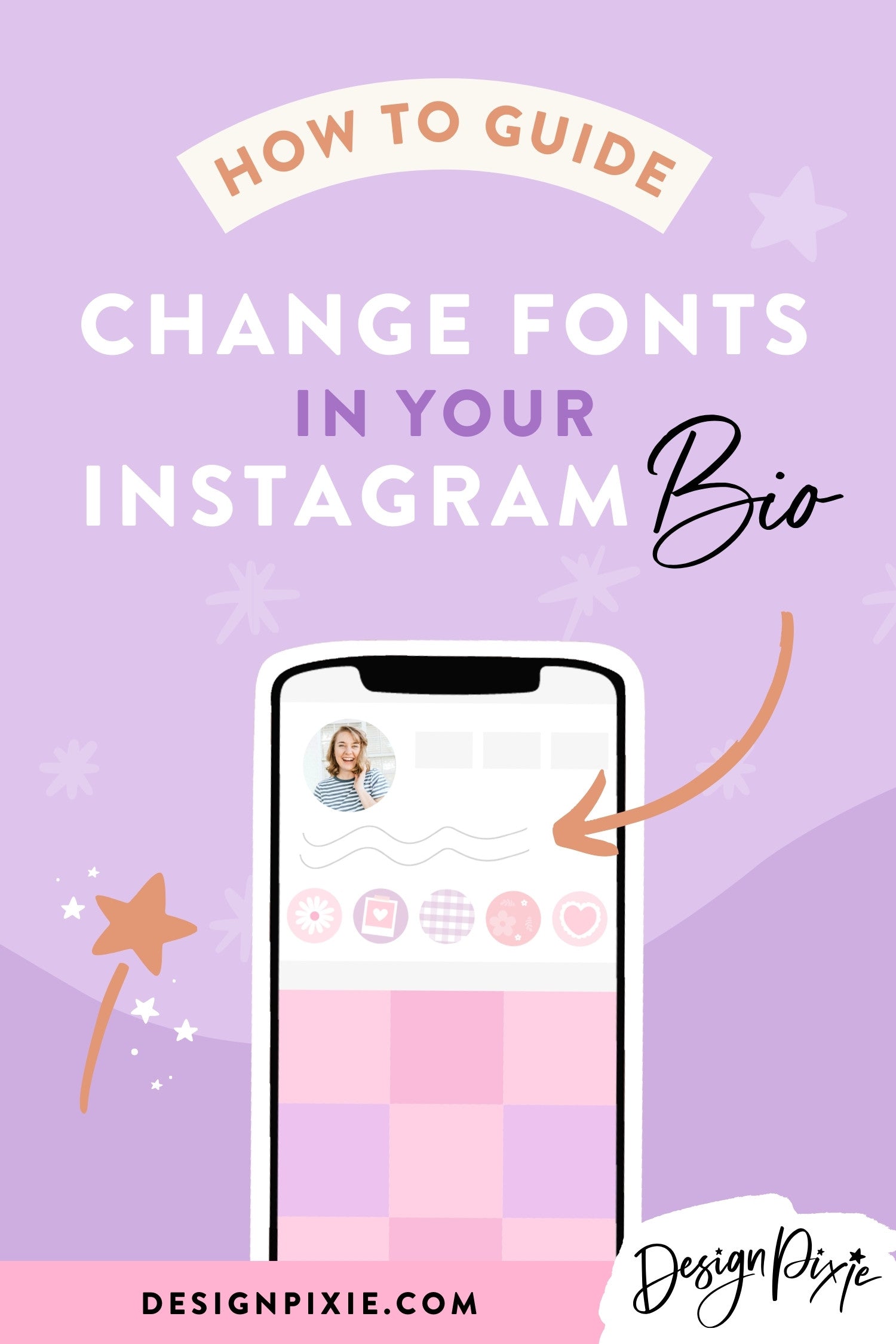
How To Change The Font In Your Instagram Bio
How do you change the font in your Instagram bio? I thought I’d share the answer with you, and guess what, these Instagram fonts are free!
Fonts for Instagram, whether for your Instagram bio or your Instagram name are easy to find. I wanted to know how to make my name cursive on Instagram as I had seen other Instagram profiles and Twitter accounts where people would have their name in a unique font and I was racking my brain trying to figure out how to do it.
So I started googling away and there it was, right in front of me. So many websites where you can change text to different fonts for your Instagram or Twitter social media profile! You don't need to download an App at all. Read on to find out how to change Instagram fonts.
how to make your name cursive on instagram
How To Change The Font In Your Instagram Bio
Follow these steps to change the font in your Instagram bio:
1. First you will need to go to a text generator website such as Lingo Jam.
2. Type the text you want to change in the first box. Lingo Jam will show you all the possible font options in the right box.
3. Highlight the text you like most and copy.
4. Go to your Instagram profile, click the 3 dots top right, then go to Edit Profile. Paste your new text into the ‘Name’ field, or into the ‘Bio’ section. Easy!
The font I like most is about the 7th option down in their list, which is like a cursive script font but the letters don’t join up. It still looks really pretty though, especially the capital letters.
Use a different font sparingly. If you create your entire bio in one of the fonts above, it will become quite difficult to read. Choose what word/s you want to highlight, whether it be your name, a word or a quote.
Creating Your Instagram Bio
I always create my Instagram bio in the Notes app on my phone, as you can add spaces and paragraphs, which when copied and pasted into Instagram will stay in place. If you try adding new paragraphs or starting on a new line while typing out your bio directly in Instagram, it won’t work.
Adding A Text Symbol
If you want to add something interesting to your name or bio and you’ve had enough of emojis, try a text symbol instead! Use this site to copy what you need and paste into your profile. I found the outline of a heart to place next to my name which I think looks really nice.
There are so many to choose from! Stars, hearts, music notes, arrows, even a crown! ♕